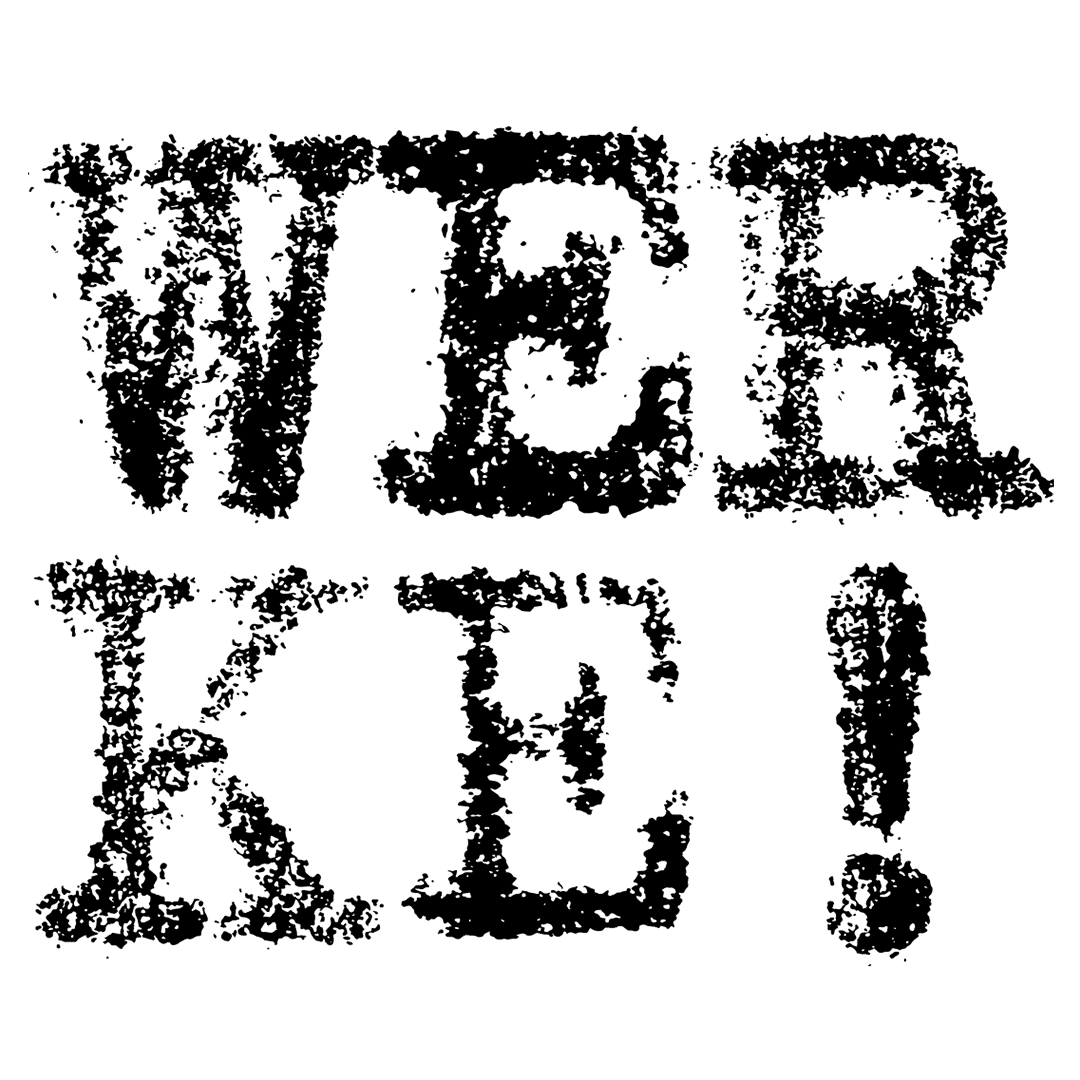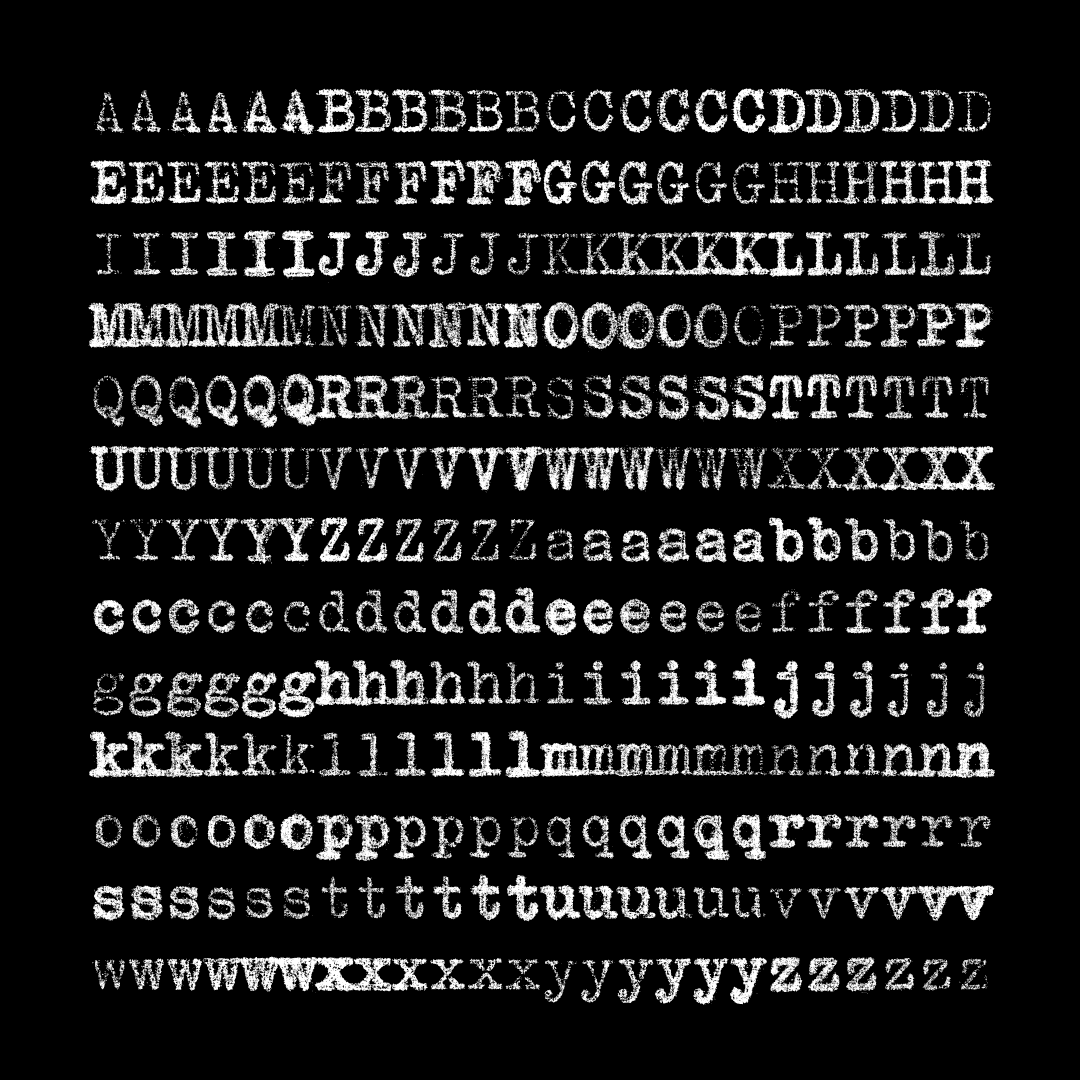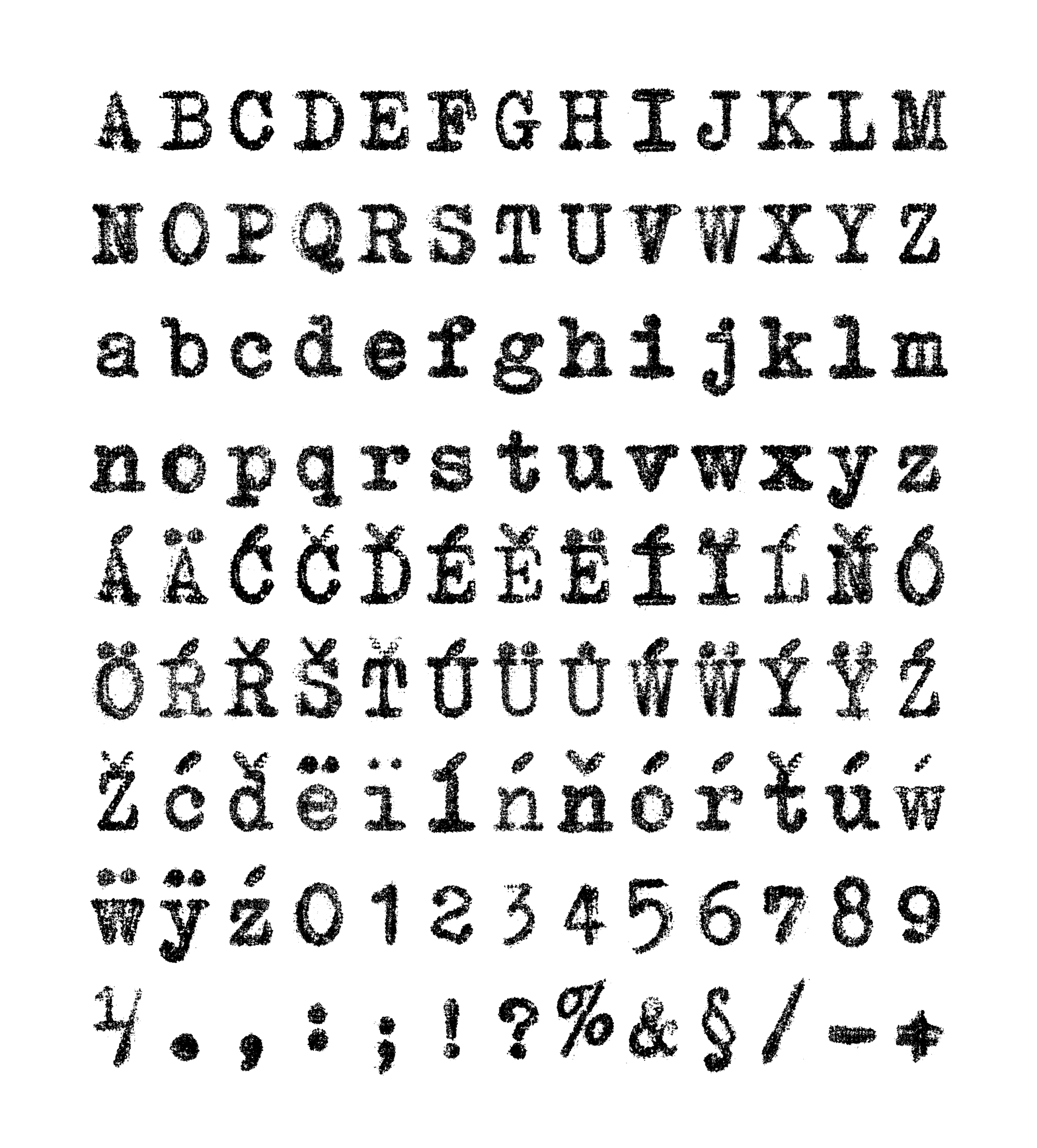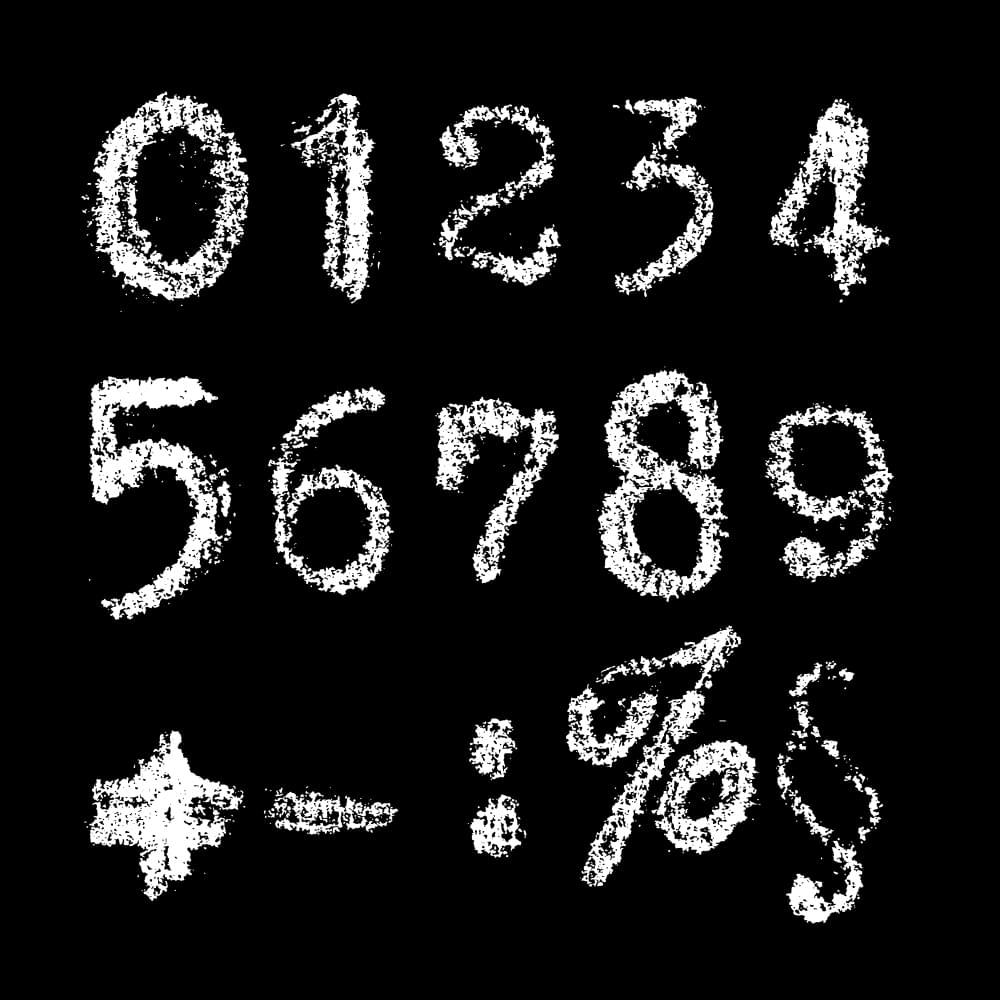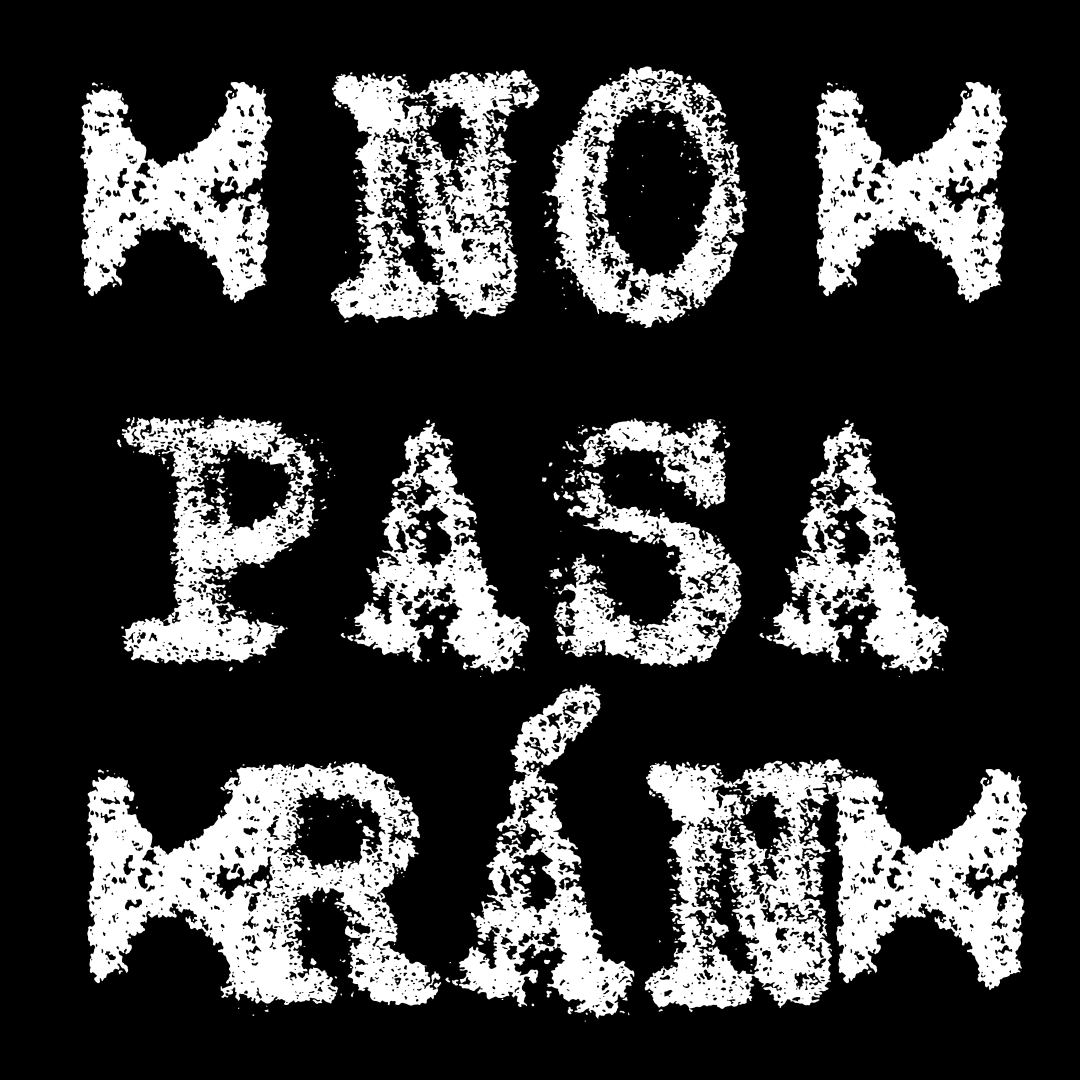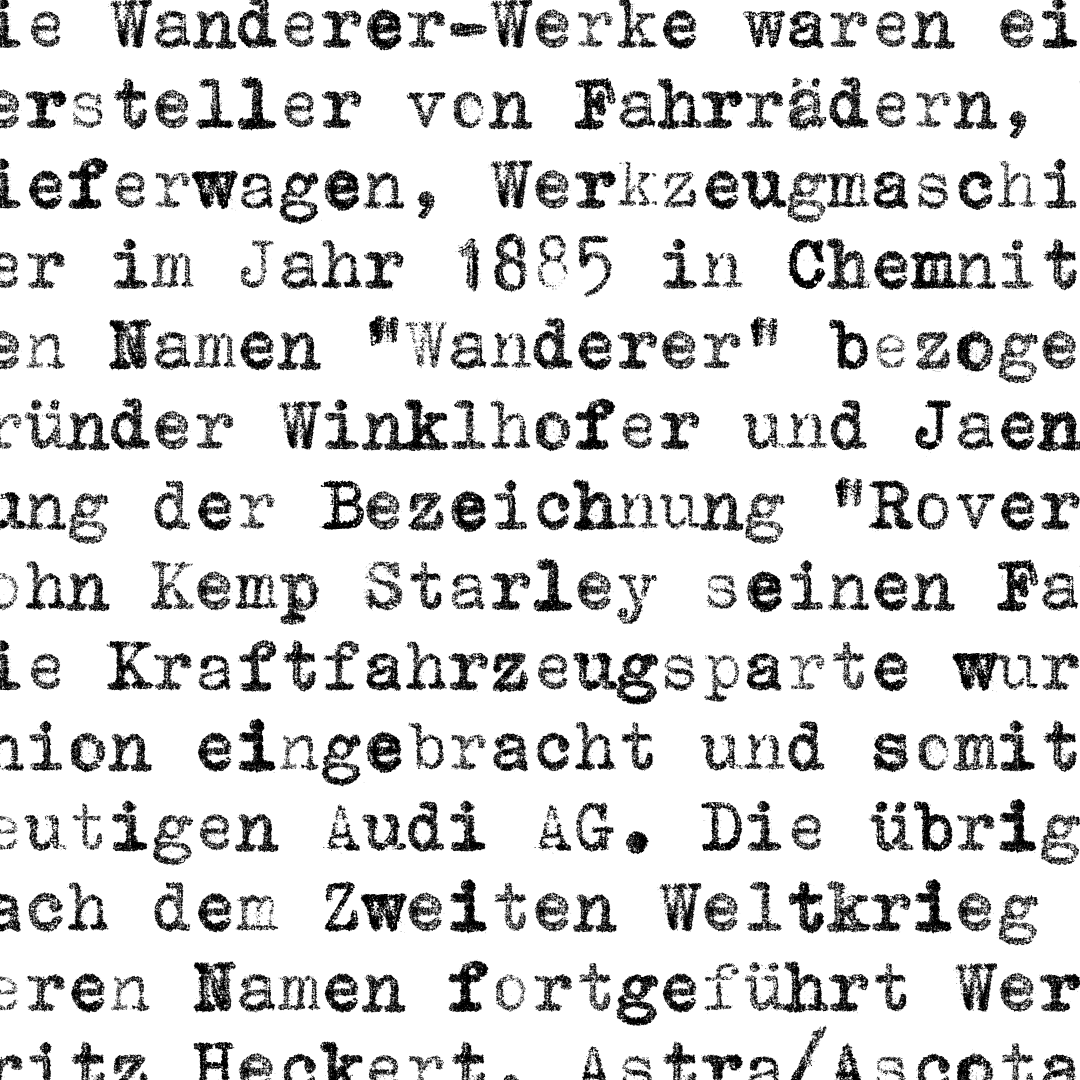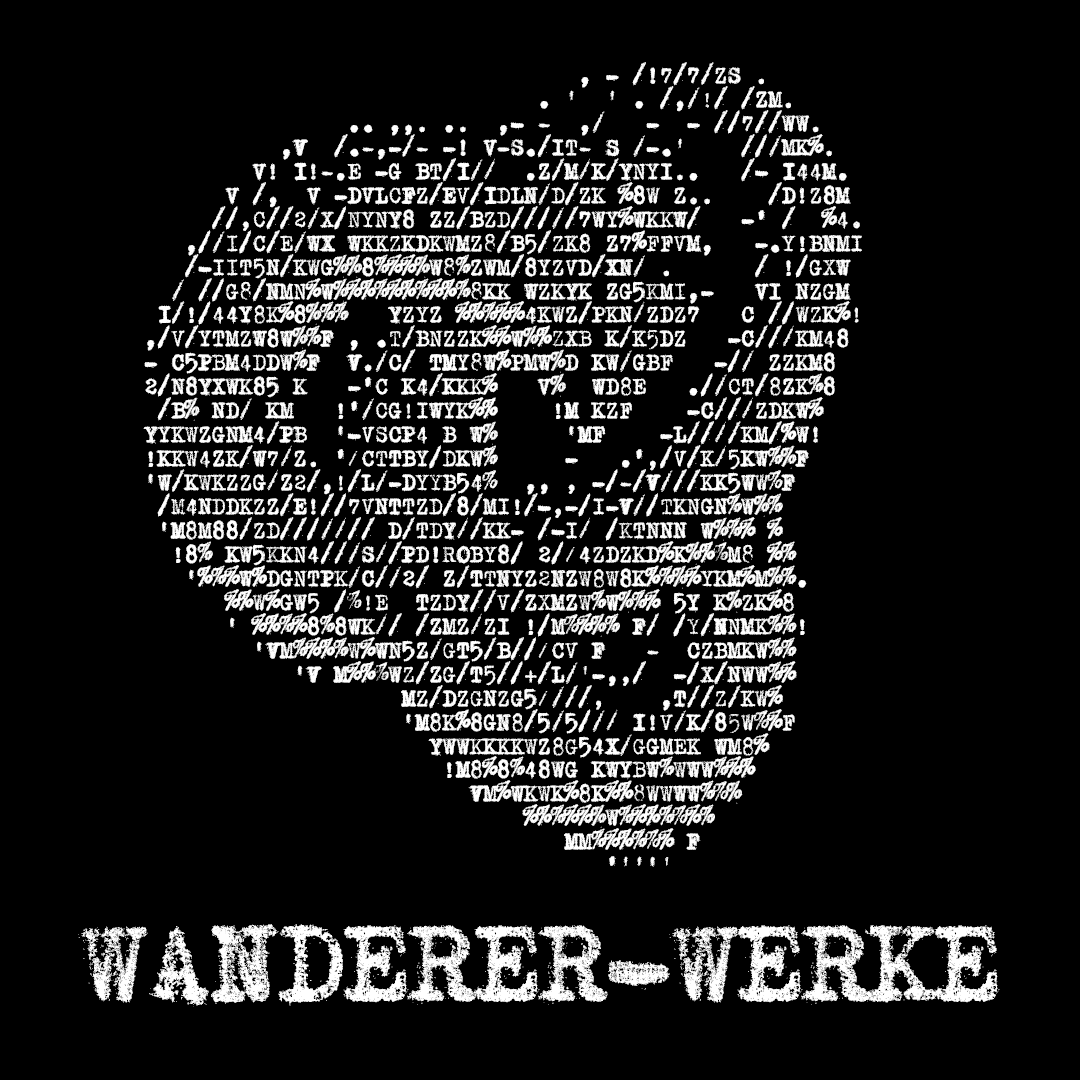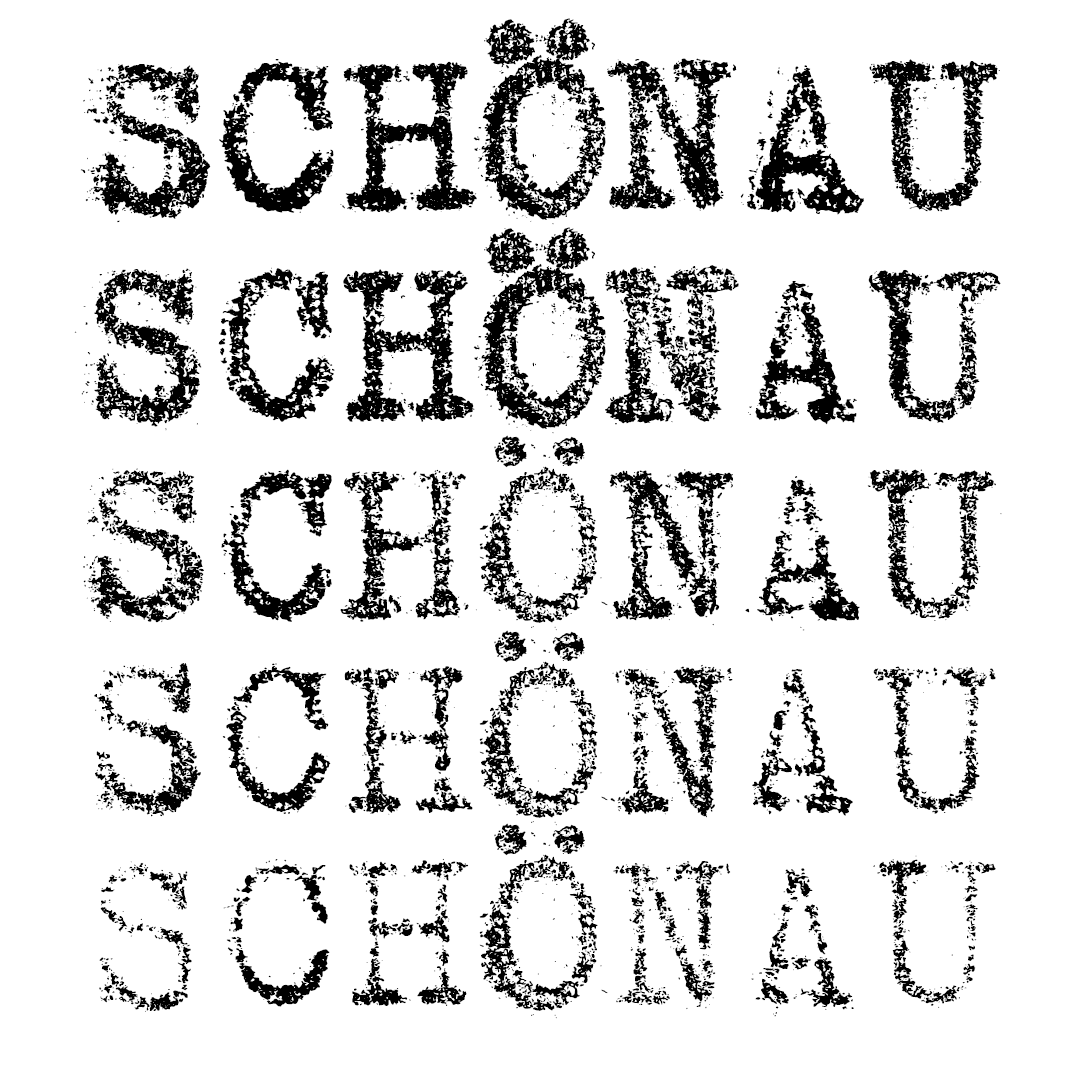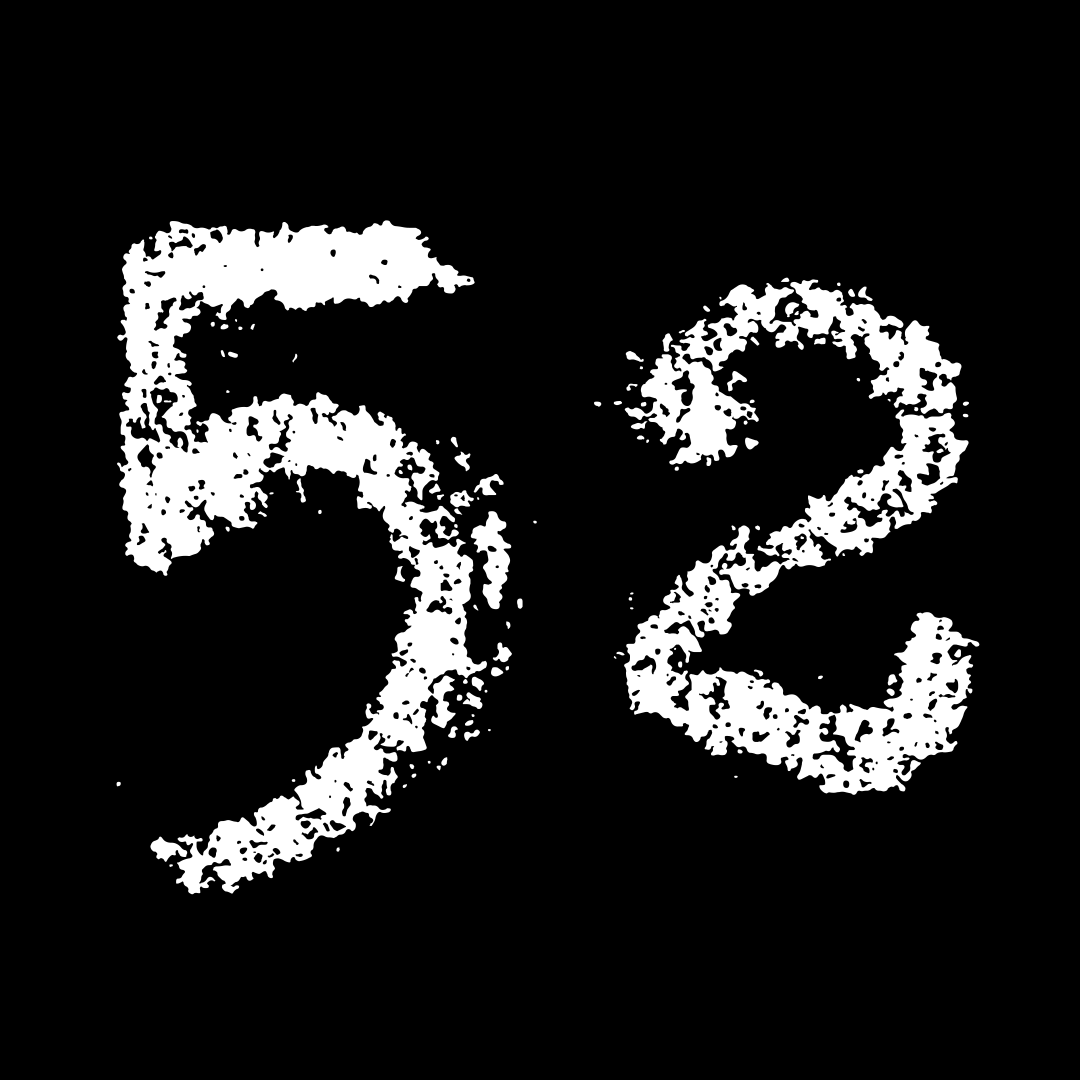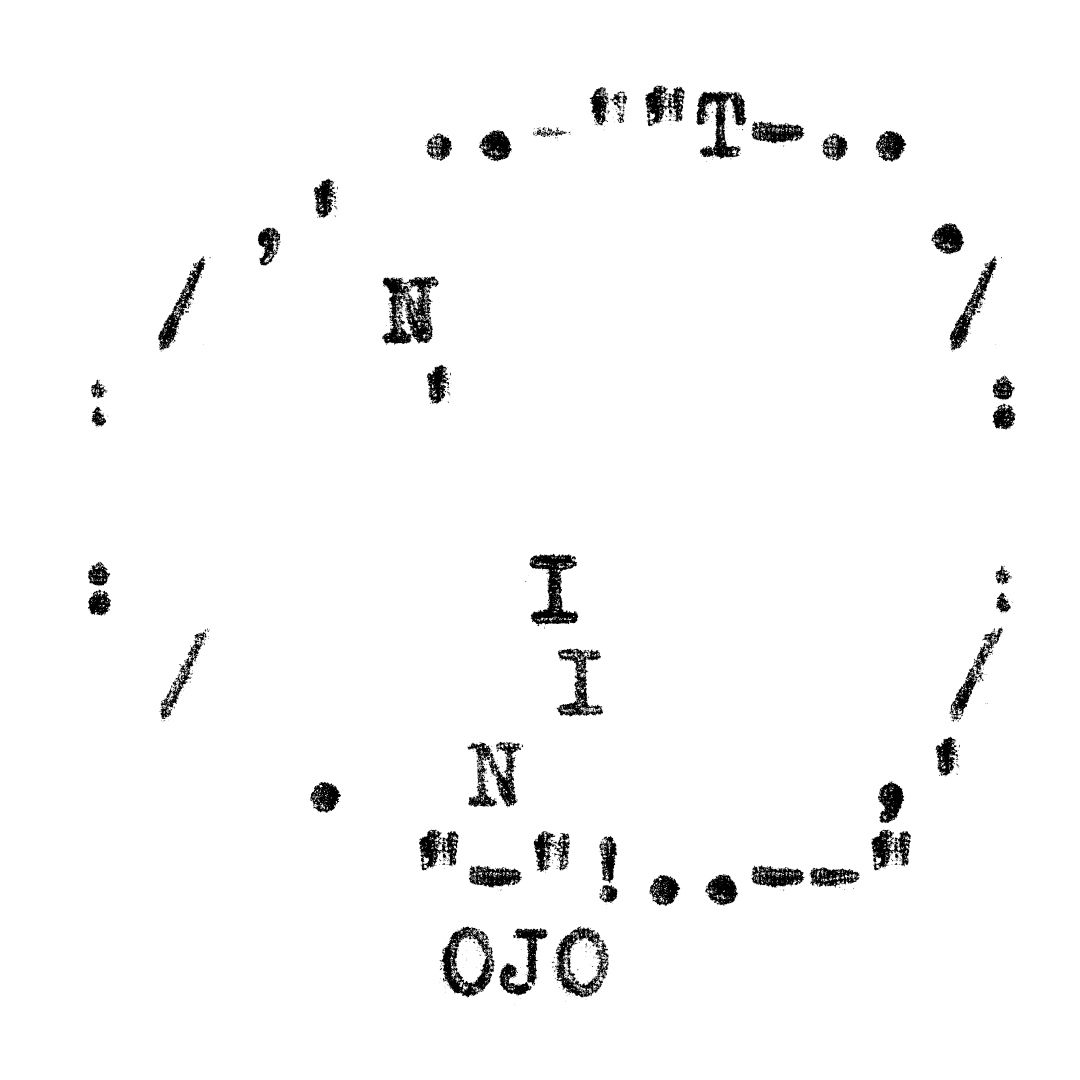
Werke
The typewriter Zuzana Lednická’s mother used to write medical reports on became a model for a monospace typeface Werke by Jakub Spurný. “I love these hidden personal layers, I kind of need them in my work,” Lednická confided. The alphabet was created for the book With an (In)human Face?! 1938–1989, about the transformations of Czech society and its reflections in art, which Lednická was designing at the time, but its use will be wider. Originally the idea was to use American Typewriter, then Lacrima and finally Trixie. But then there was the 100-year-old Continental typewriter made by the German company Wanderer-Werke lying behind the couch in the studio. So in September 2018 Spurný created his own typescript with each letter in six different versions of keystrokes. It offers two optical families: L, as detailed as the software allowed for, and S, for smaller sizes in inverse use. Each family contains three fonts as if from three different writers, with the same letters but different alternations of the keystroke intensity. The character set corresponds to the typewriter model – there was no need to add anything that it did not have in 1920. A true copy of typescript, as accurate as today’s technology permits.